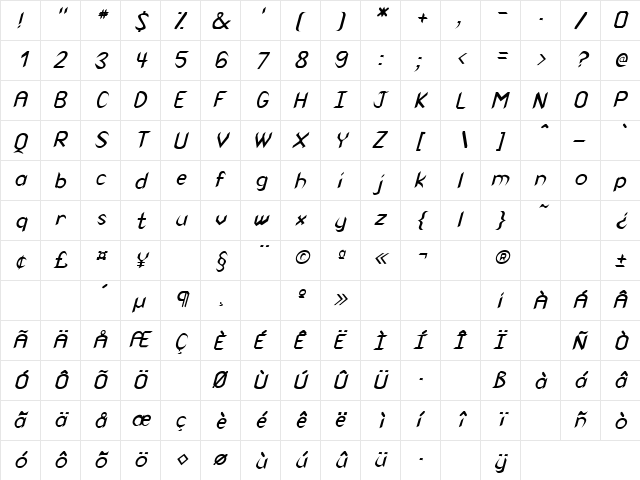
Nonfiction 1 Italic
Design Context for Nonfiction 1 Typeface
Nonfiction 1 offers clean, dependable letterforms without strong stylistic allegiance, making it a practical choice for designers who need flexibility. Its italic angle brings a sense of urgency and motion to the letterforms.
Pro Tip: Use Nonfiction 1 for emphasis, pull quotes, and subheadings where its slanted energy can add rhythm to the layout.